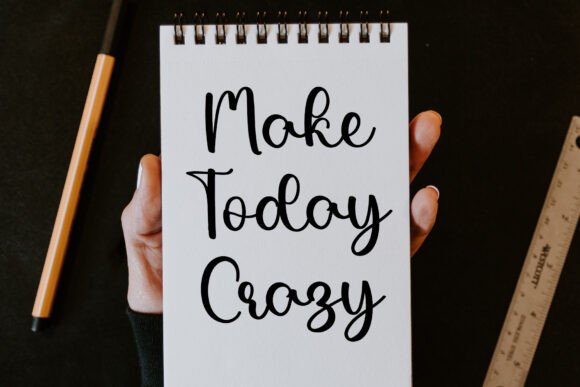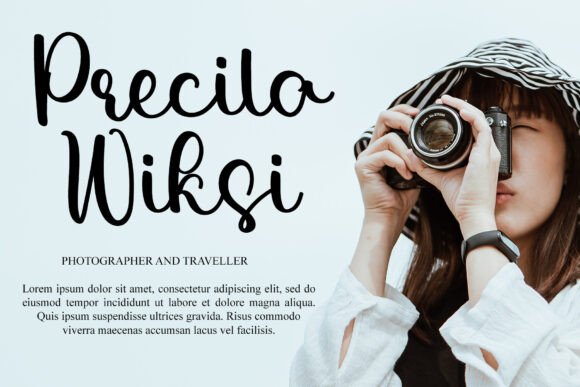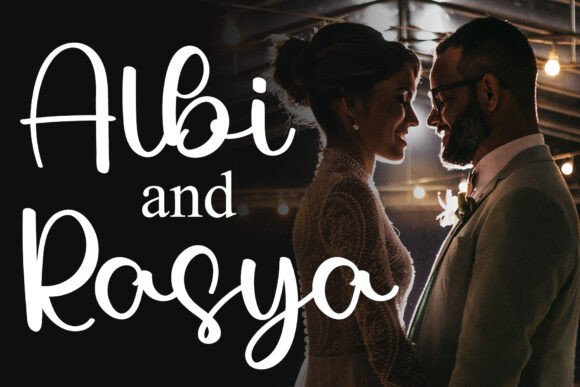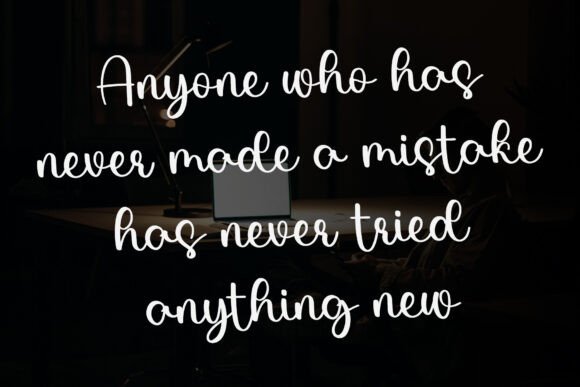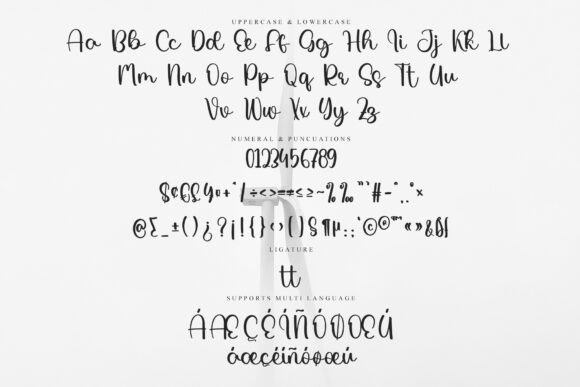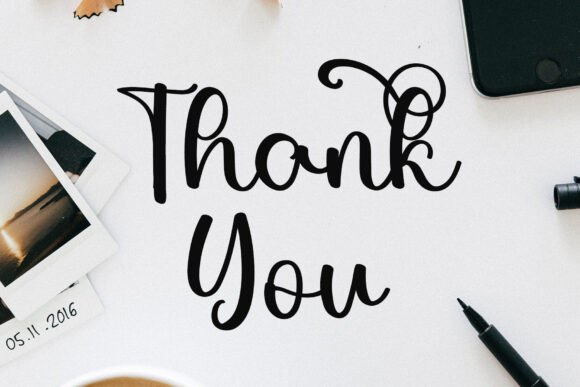
The Fetching Font: Elevate Your Designs with Timeless Elegance
Have you ever been in the middle of a design project, and suddenly, you’re stuck on finding the perfect font? I recall a particularly frustrating experience while working on a wedding invitation design. My client wanted a font that exuded classic sophistication, but with a modern twist. After hours of scouring the internet, I stumbled upon Fetching Font, and it was love at first sight! ✨
An Honest Review of Fetching Font
- ✨ Timeless classic calligraphy inspiration with a contemporary atmosphere
- ✅ Balanced and varied letterforms that add visual interest to any project
- ✅ Impeccable form and attention to detail, making it perfect for high-end designs
- ✨ Handwritten feel that adds a touch of personality to your designs
While Fetching Font is an exceptional font, there are a few minor quirks to be aware of: 🤔
- ⚠️ Some users may find the font overly elegant for certain projects, such as casual or playful designs
- ⚠️ Limited availability of certain OpenType features in certain software
The Designer Inspiration Behind Fetching Font
Fetching Font was inspired by the timeless classic calligraphy of the past, with a modern twist. The designer aimed to create a font that would balance elegance with legibility, making it perfect for a wide range of design projects.
Q: What type of designs is Fetching Font best suited for?
A: Fetching Font is ideal for high-end designs, wedding invitations, luxury brands, and any project that requires a touch of elegance.
Q: Does Fetching Font come with OpenType features?
A: Yes, Fetching Font includes OpenType features, glyphs, and stylistic alternates to enhance your design.
Q: Is Fetching Font easy to read?
A: Yes, Fetching Font is designed to be legible and easy to read, making it perfect for body text and headings.